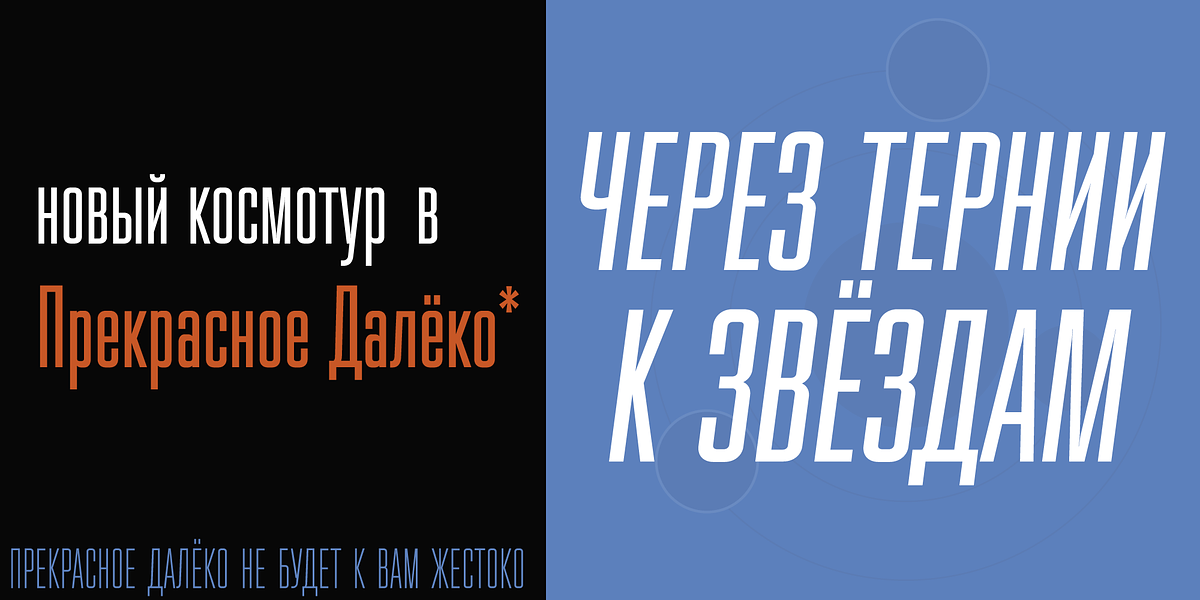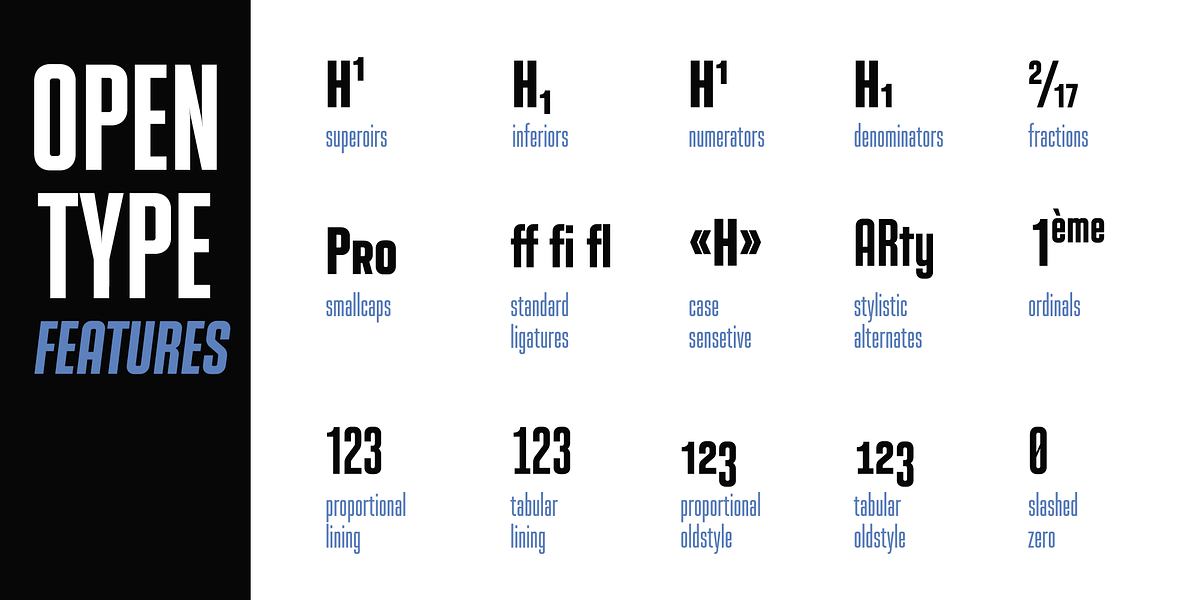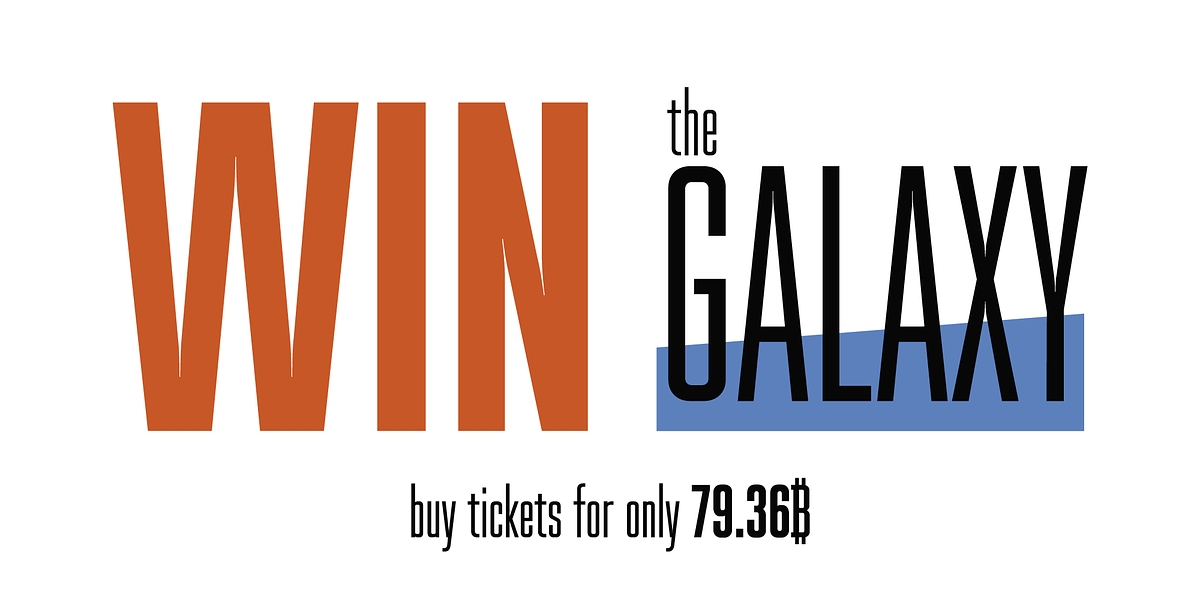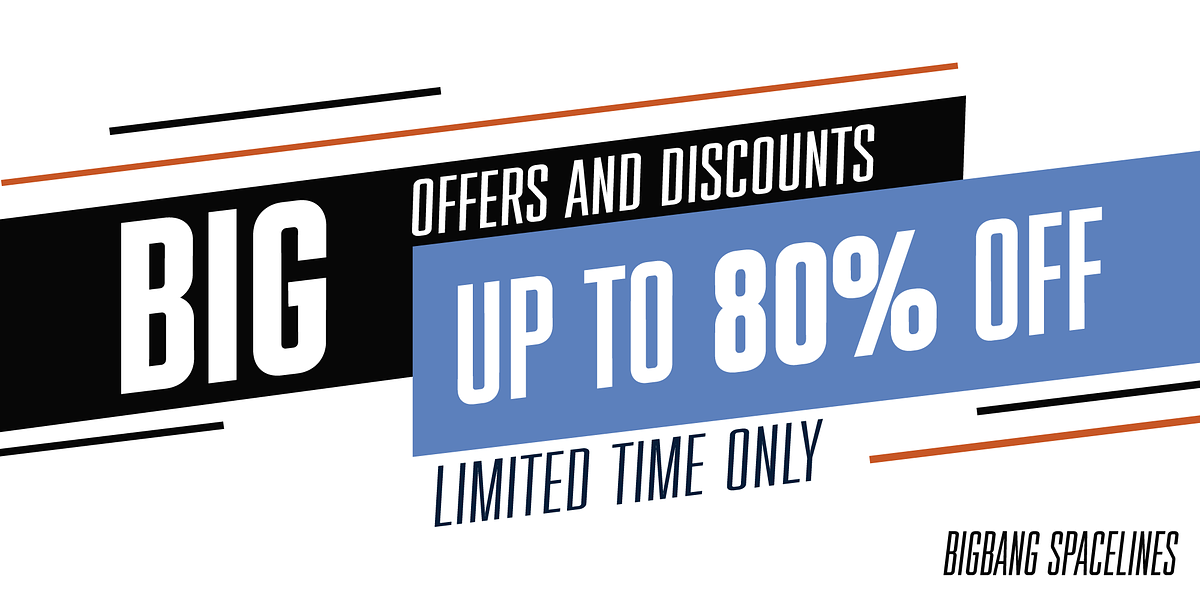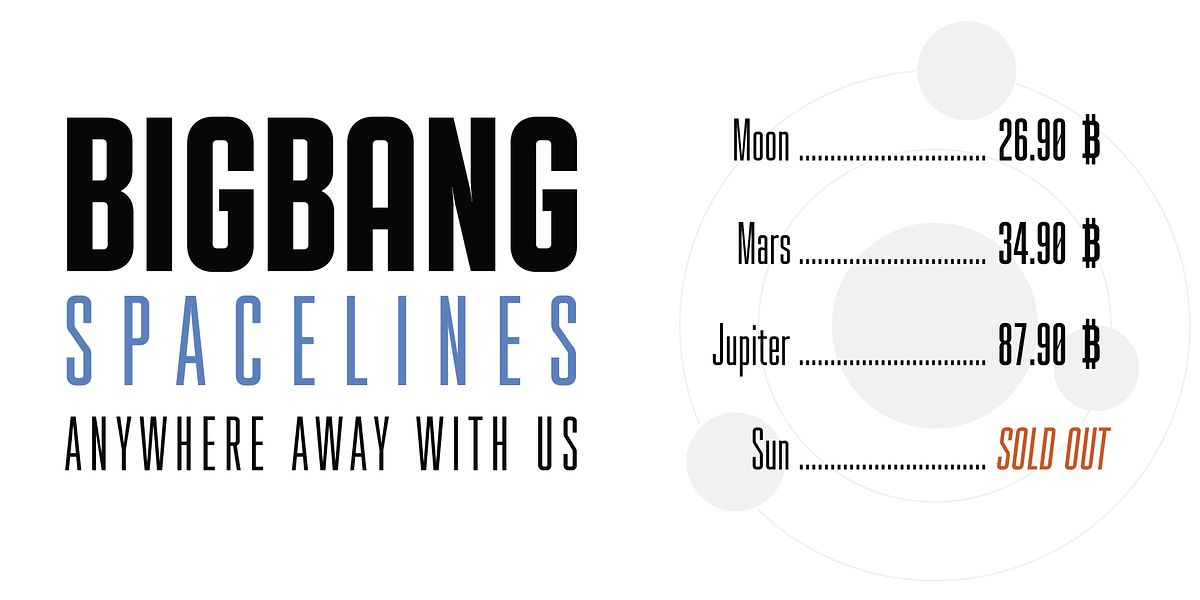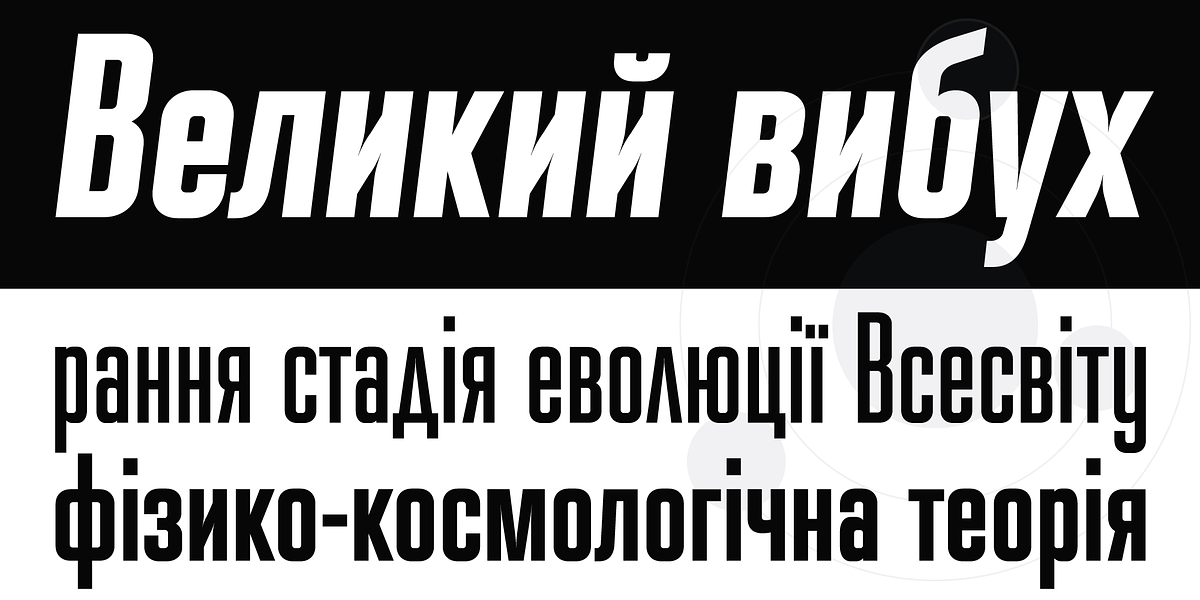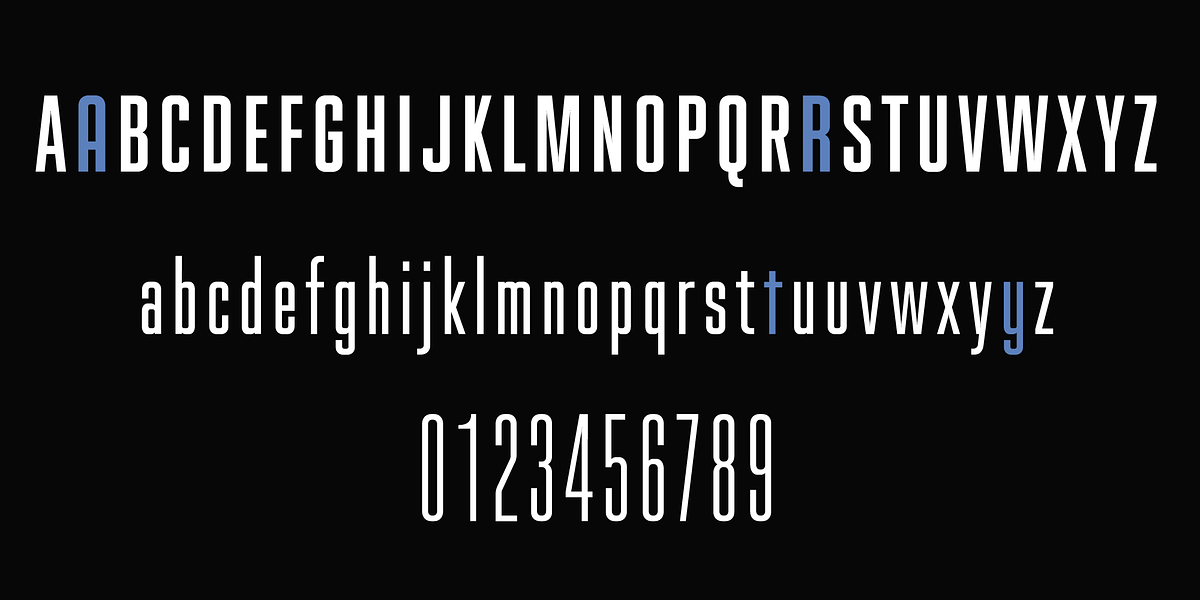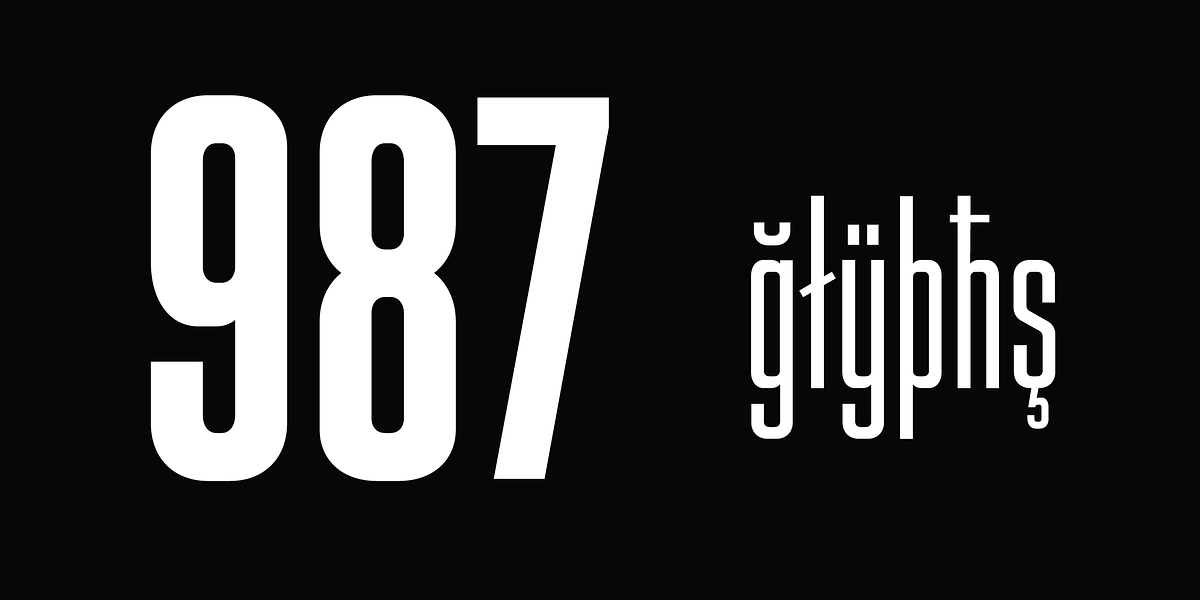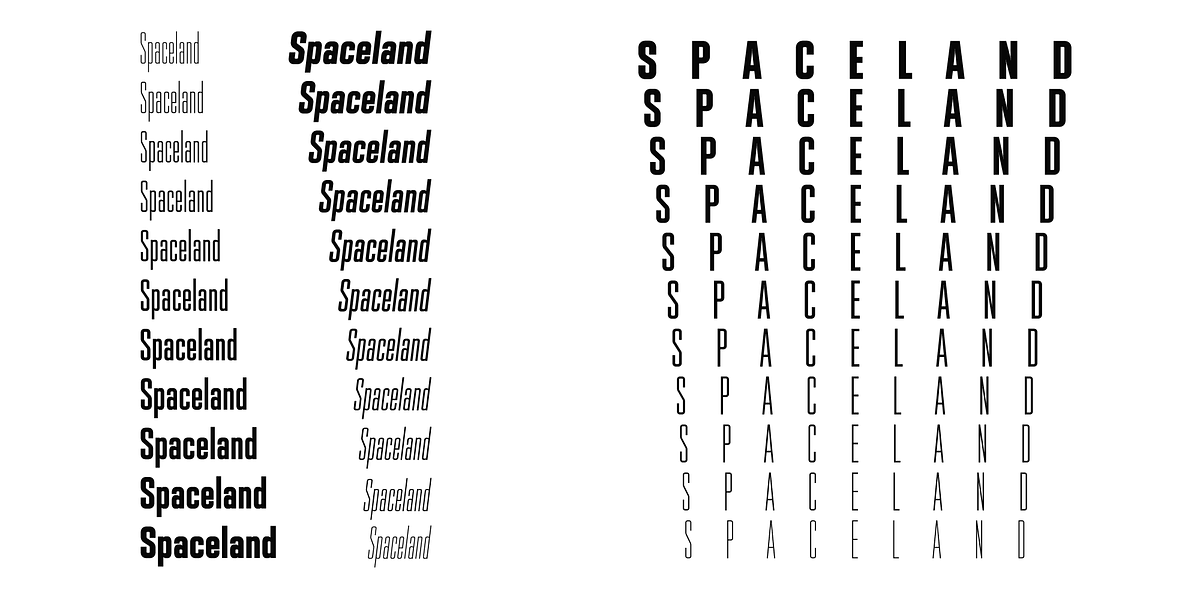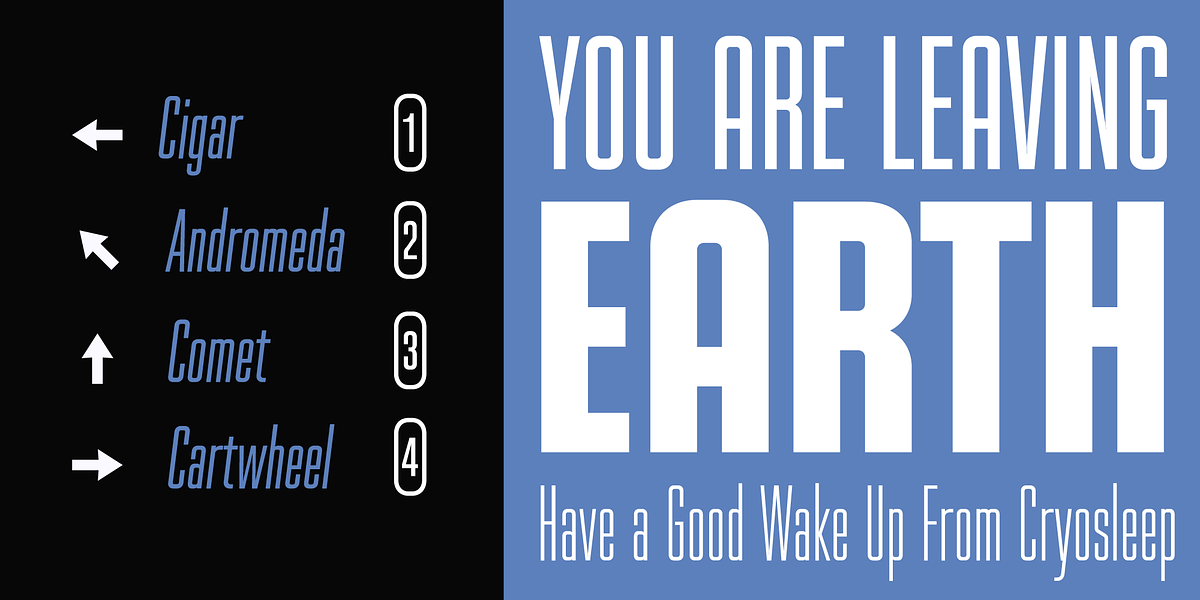
Spaceland
Spaceland is a geometric sans serif font designed for display purposes. Its distinguishing feature is its narrow width while maintaining legibility. The font comes in 11 weights, including matching obliques, making it suitable for a wide range of headline sizes and styles. It's particularly well-suited for applications like movie posters, health warnings, and bold titles where a strong visual impact is desired.